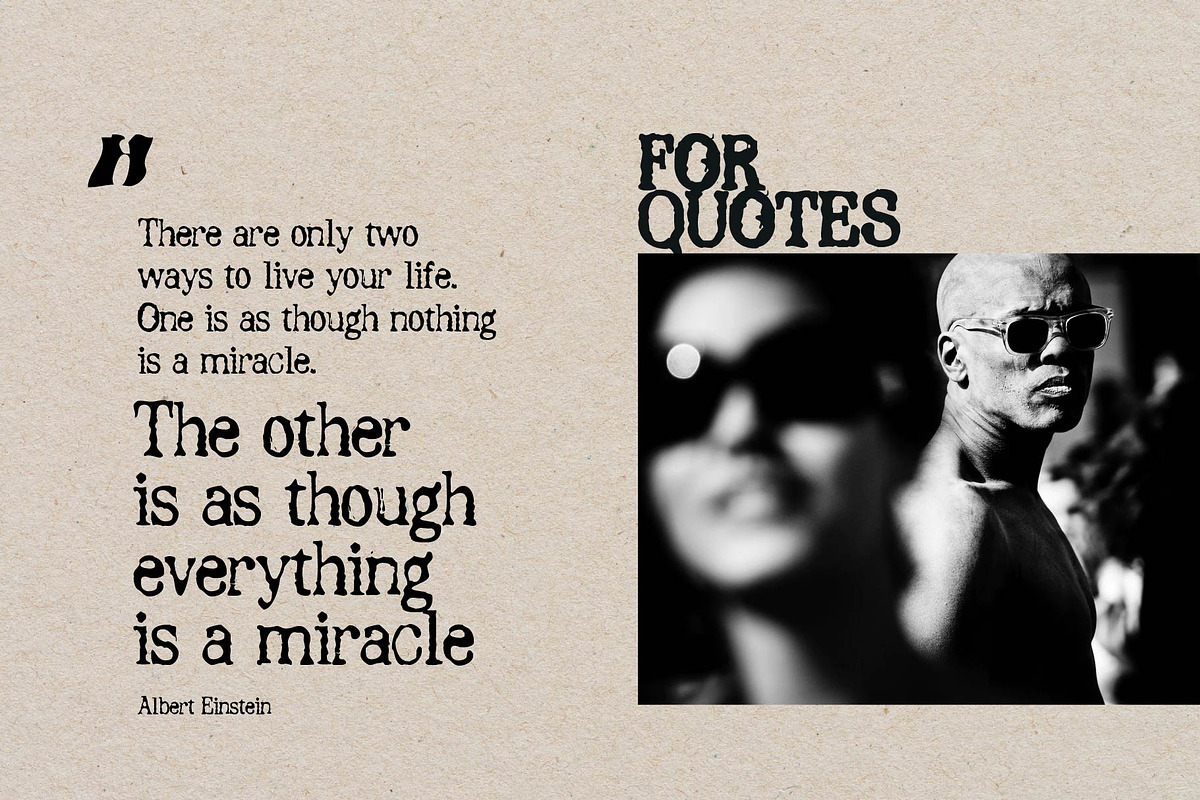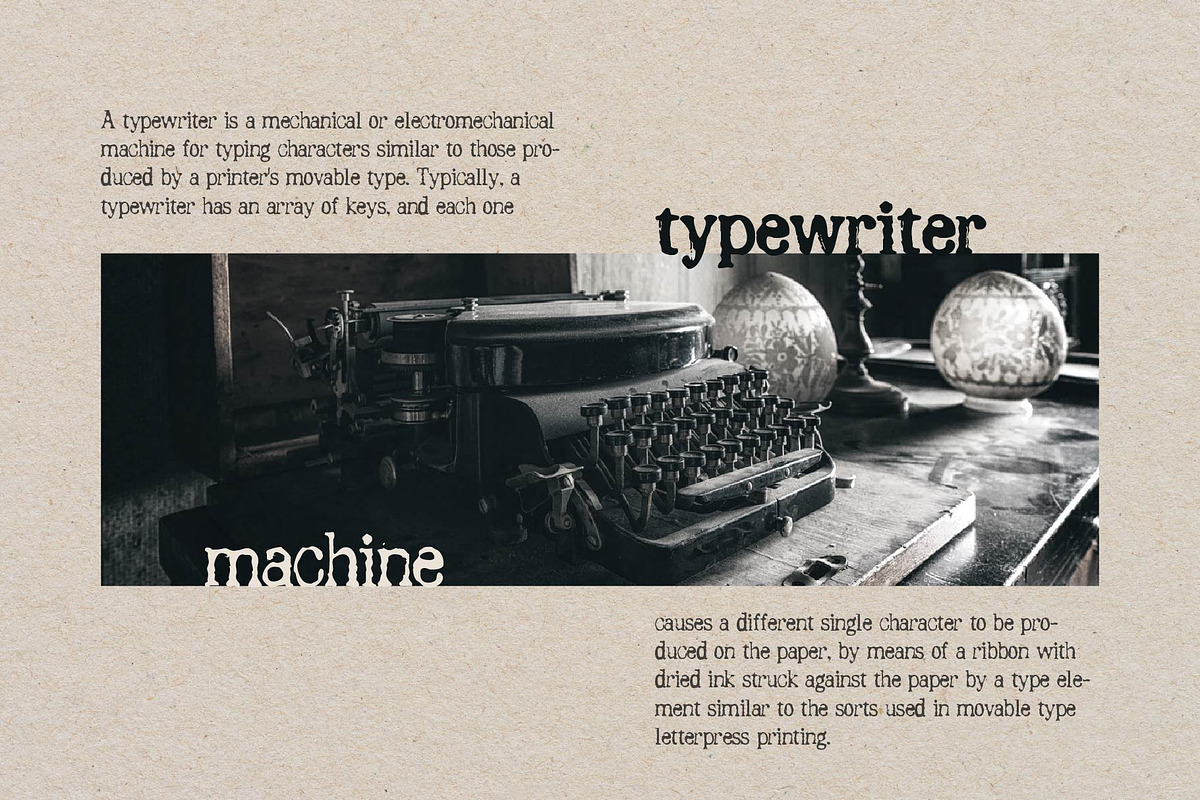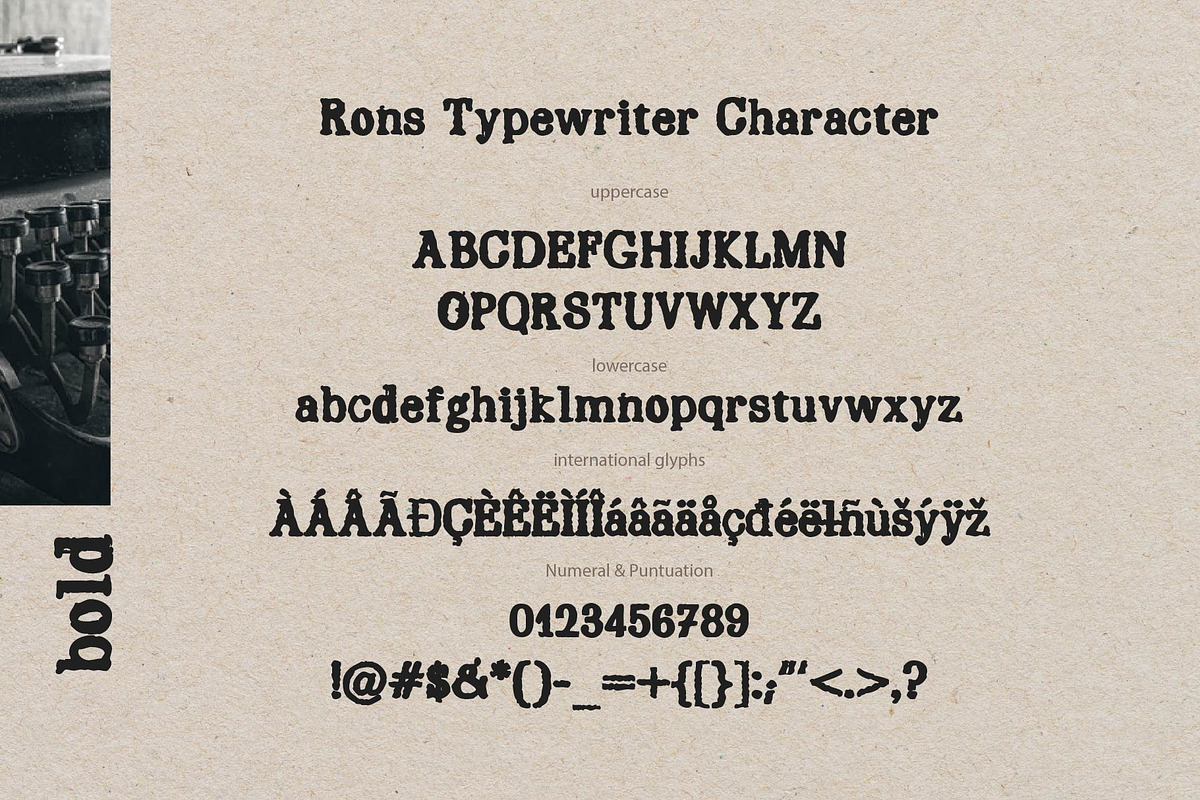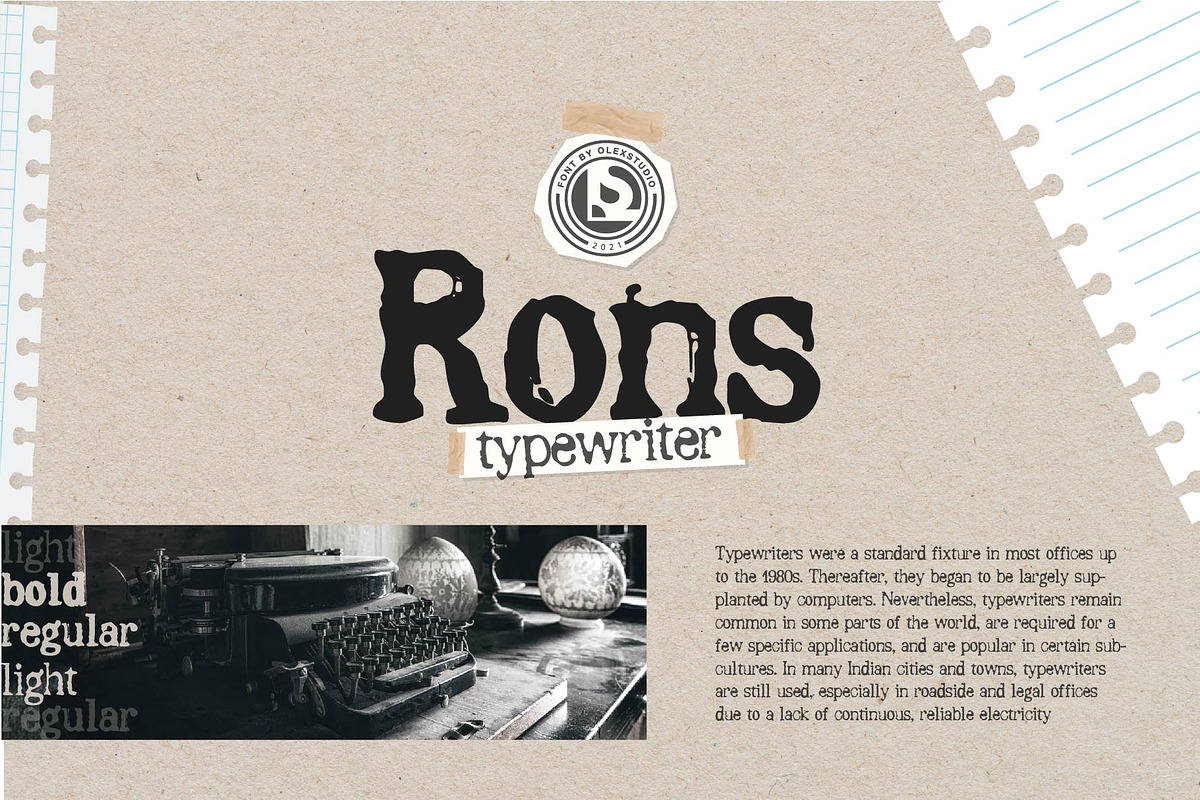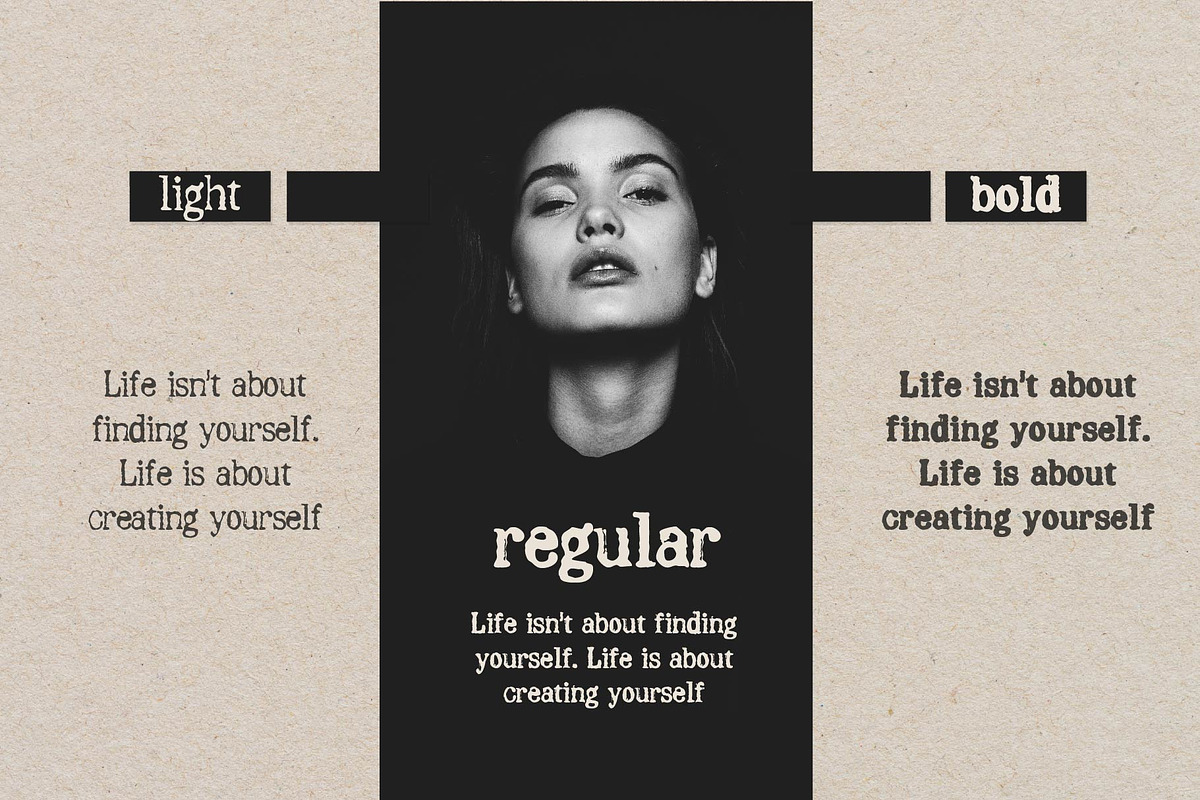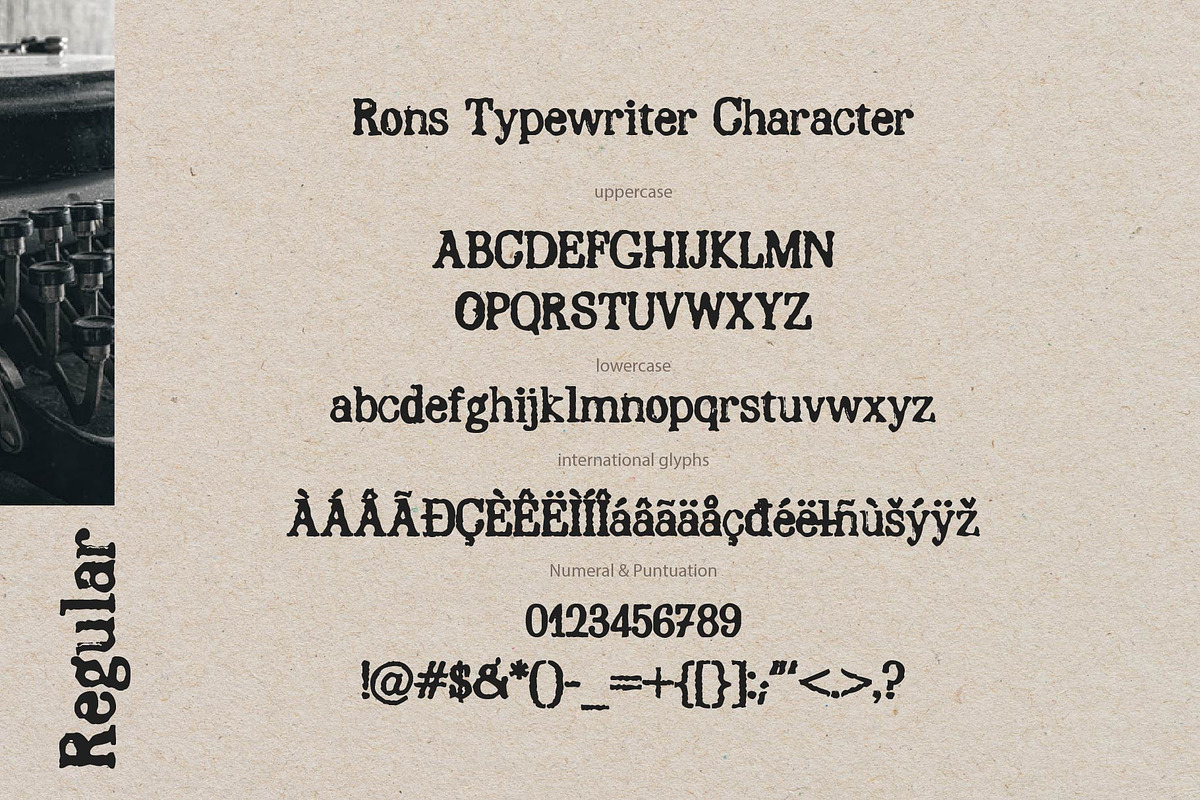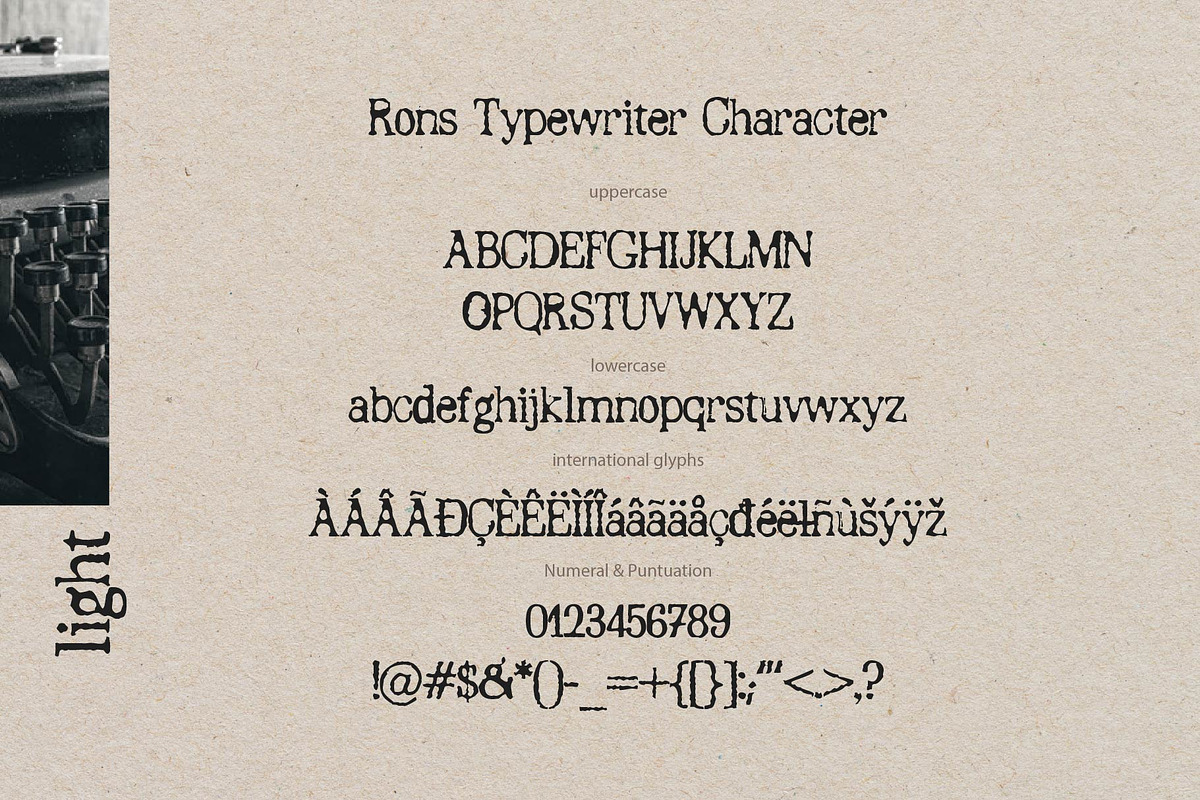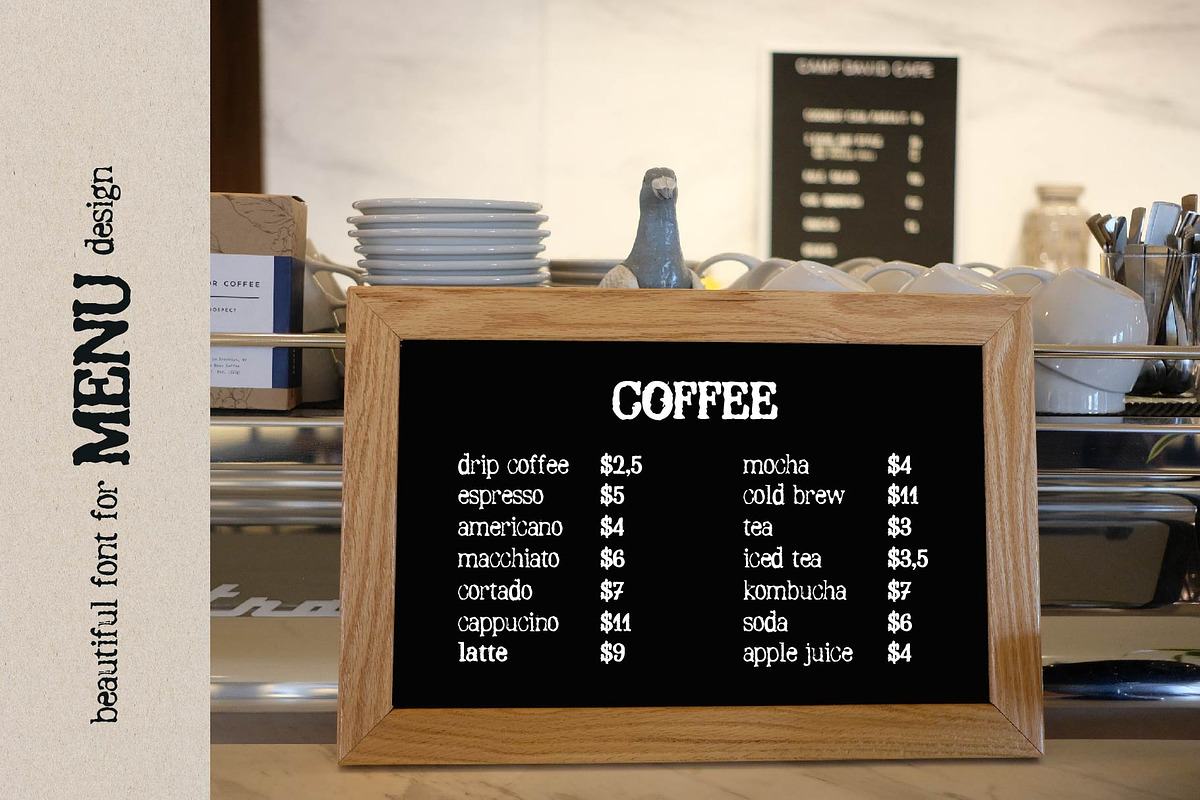
RONS TYPEWRITER
""Rons Typewriter** is a serif font will look gorgeous on all your designs, invitation, poster design, book design, branding materials, logo's, t-shirt and all project design other.
Rons Typewriter font contains standard characters, Lowercase, Uppercase, numbers, punctuation and international glyphs. You will receive OTF, TTF files & WEBFONT.